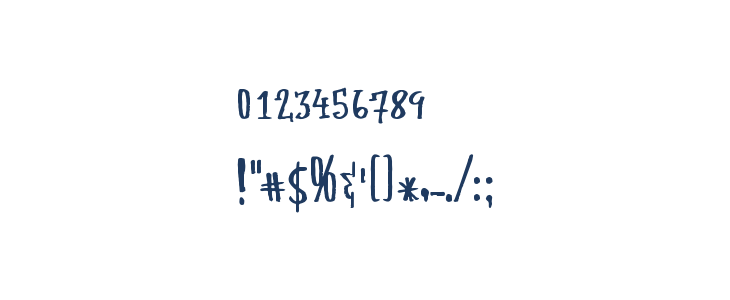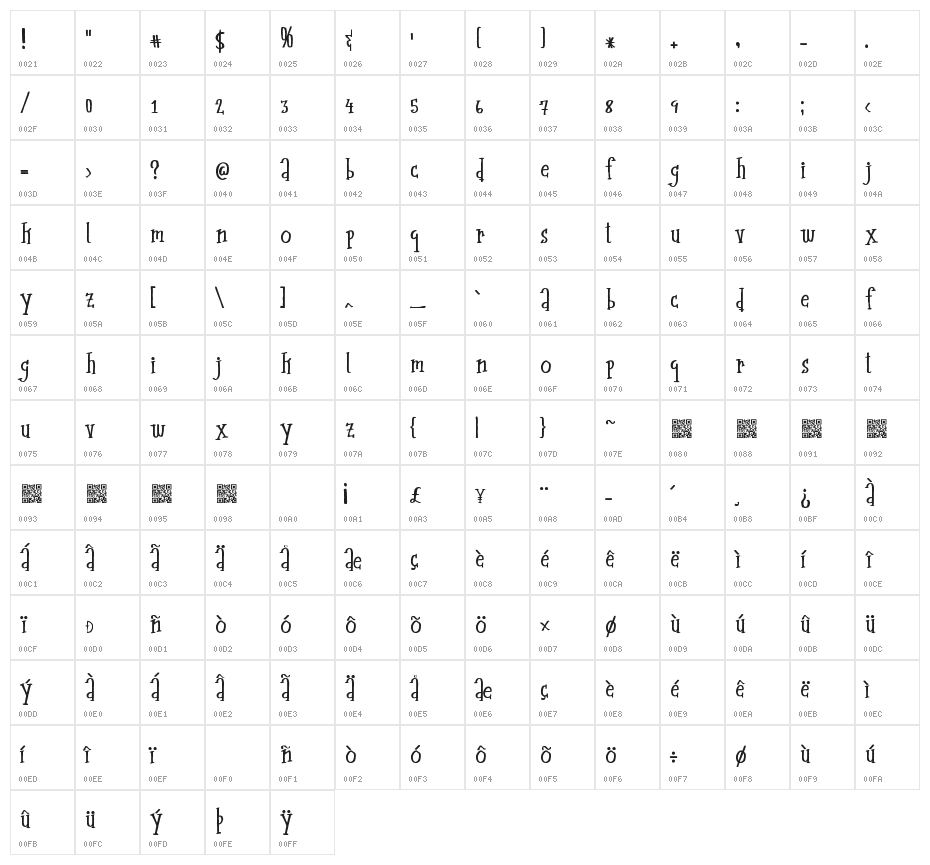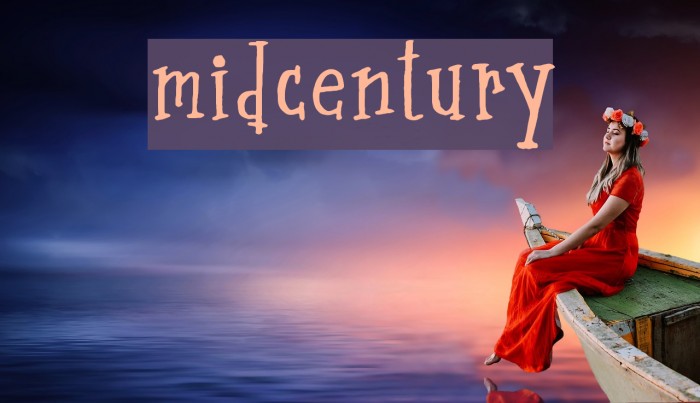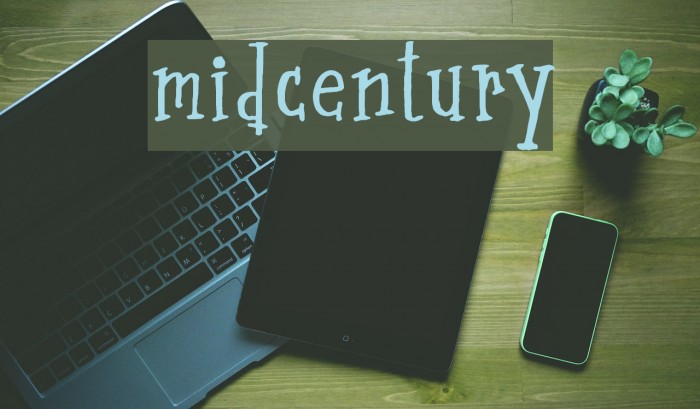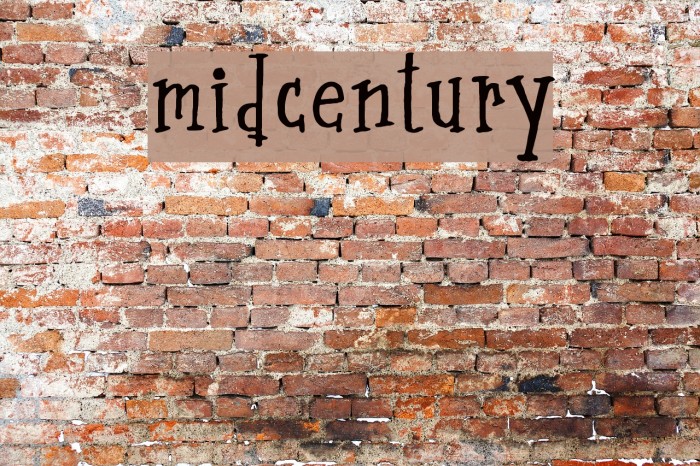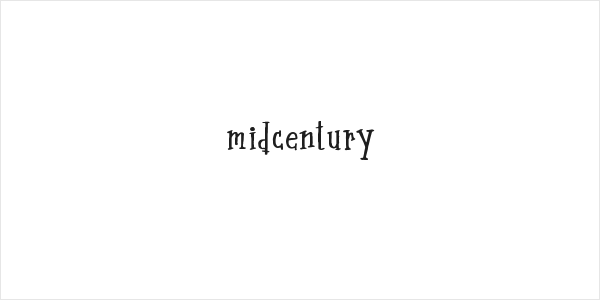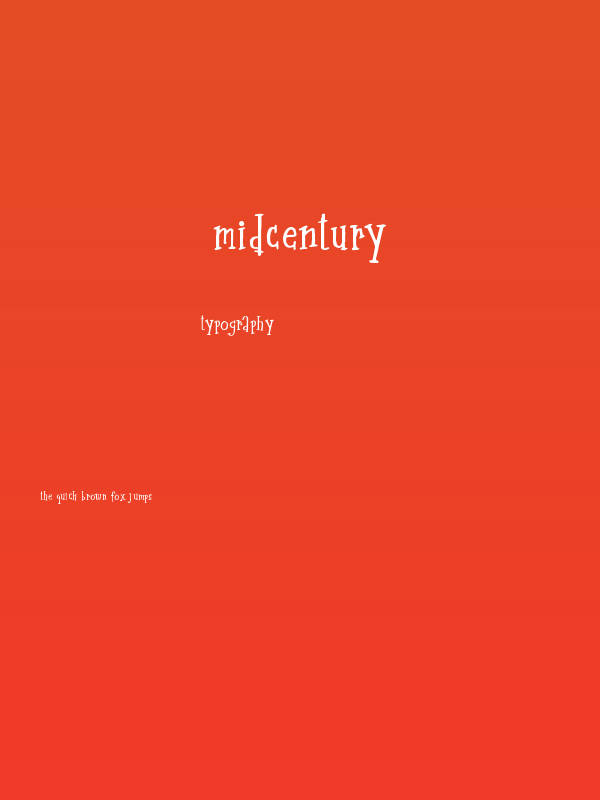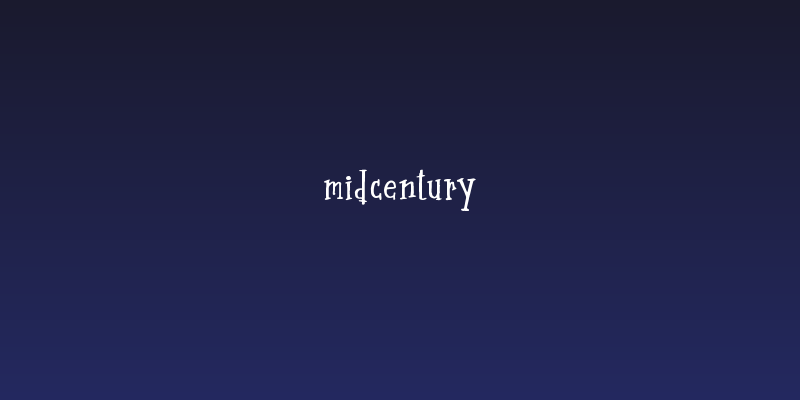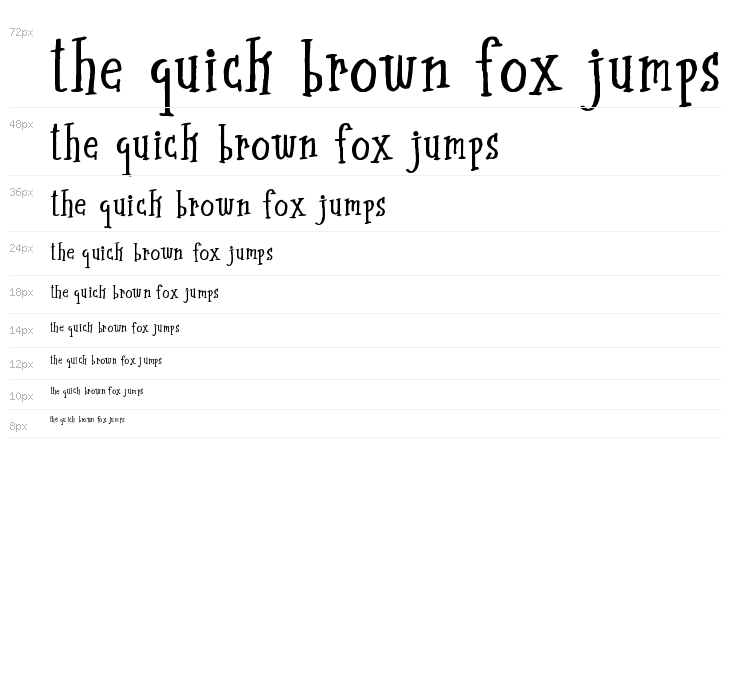
midcentury Font
midcentury Description
This font features a playful and quirky design, characterized by its uneven strokes and whimsical flair. The letters have a hand-drawn quality, with irregular edges and varying line thickness that give it a unique, artistic appearance. The uppercase and lowercase letters maintain a consistent style, with a slight slant that adds to its dynamic feel. The numerals and special characters follow the same design principles, ensuring a cohesive look across all elements. This font exudes a sense of creativity and individuality, making it stand out in any design project.
| Use Case | Headlines, Logos, Artistic projects |
| Proposed Projects | Ideal for creative projects such as children's books, artistic posters, and branding for quirky or artisanal products. |